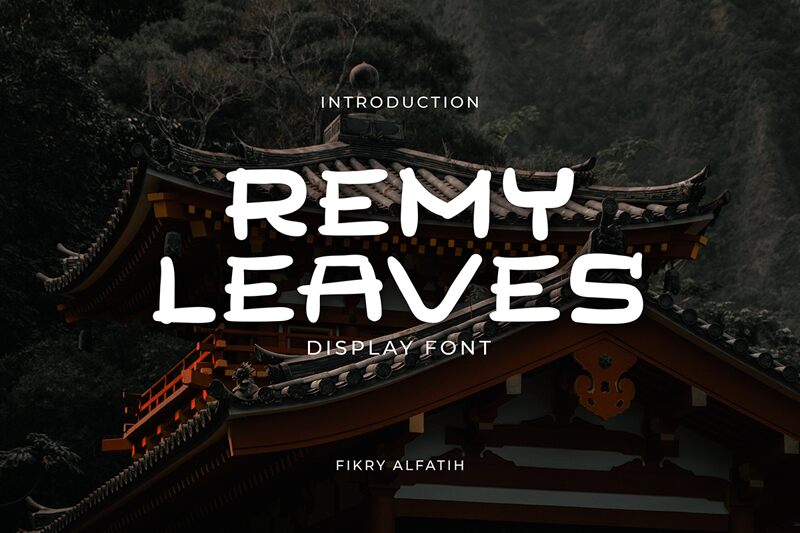
Remy Leaves, a creation of designer Fikry, exudes an alluring Japanese-inspired aesthetic. This expanded display font captivates with its intricate, organic lines and graceful curves, evoking a sense of tranquility and sophistication. The Remy Leaves font's unique character shines through, making it a visually striking choice for those seeking to infuse their designs with a touch of Eastern elegance.
Remy Leaves is particularly well-suited for projects that celebrate Japanese culture, such as restaurant branding, clothing lines, or film promotion. Its expansive width and distinct style lend themselves seamlessly to bold headlines, eye-catching logos, and impactful typographic compositions, making it an excellent selection for businesses and creatives aiming to convey a strong Japanese influence.